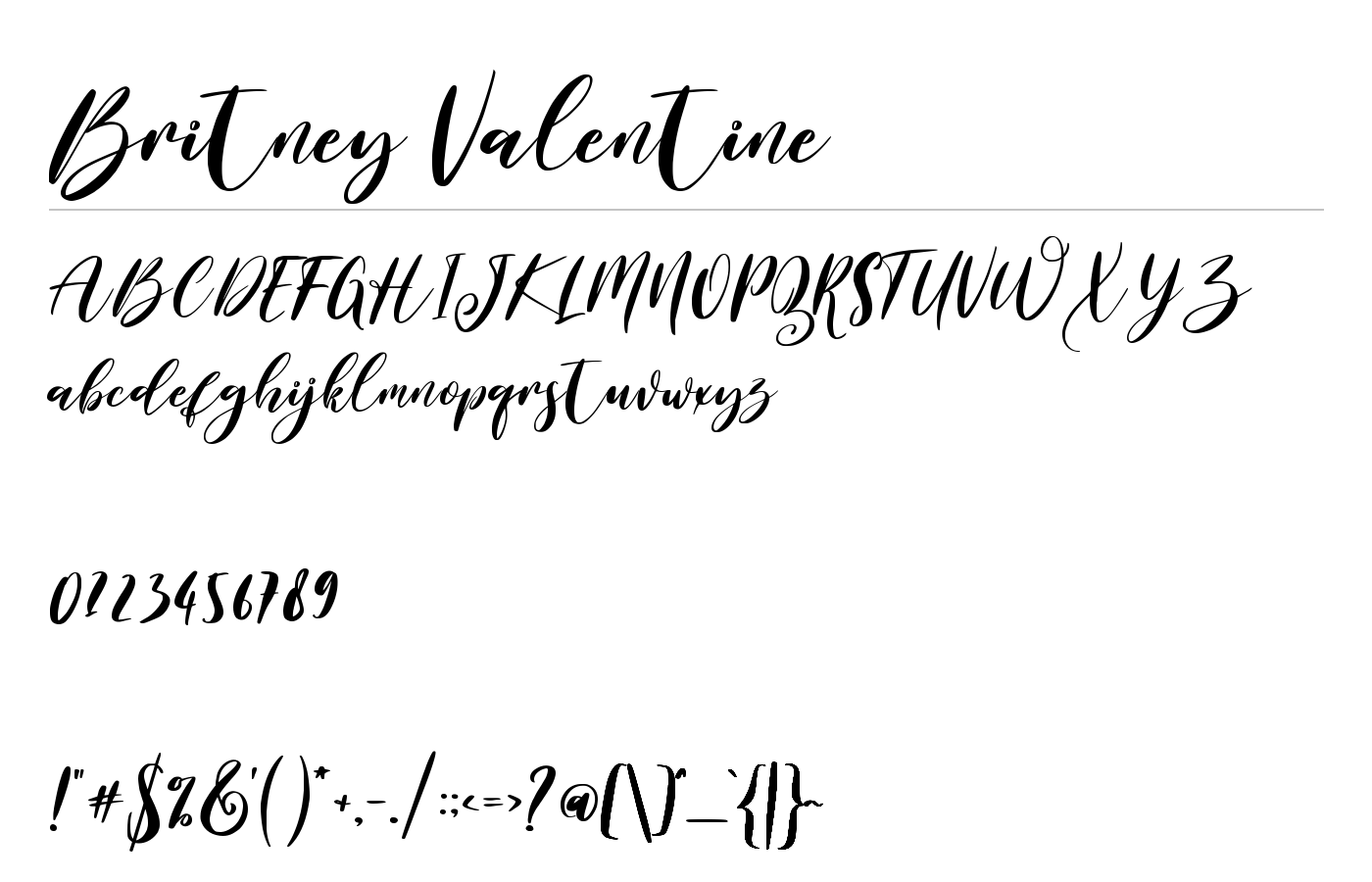
Britney Valentine is an elegant script font featuring flowing, hand-lettered strokes with a vibrant, lively character. Its smooth, brush-like lines and varying stroke weights create a stylish and feminine feel, making it perfect for branding, invitations, and creative designs that seek a personal and sophisticated touch. This font shines in projects that want to convey charm and grace with a modern, artistic flair.
Britney Valentine Font
About Britney Valentine Font
| Font family | Britney Valentine Font |
| Designer | Noftanti x Aldedesign 2020 |